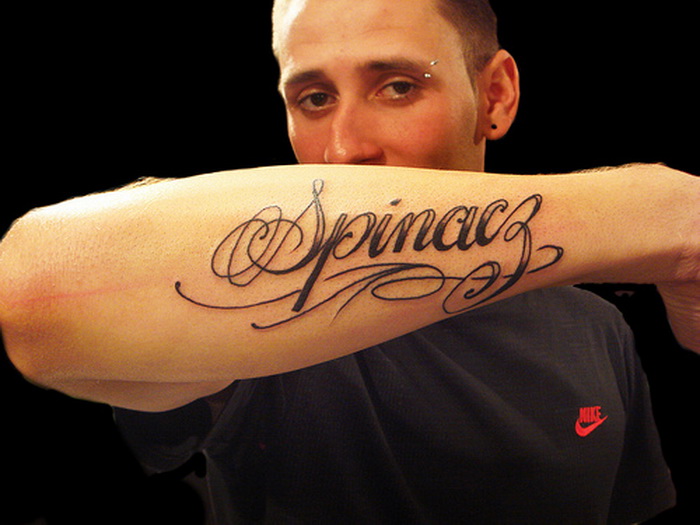
Famous Best Tattoo Fonts For Guys 2022
Famous Best Tattoo Fonts For Guys 2022. And with this font, you are entitled to many creative designs. This beautiful cursive tattoo font is great for both men’s and women’s tattoo designs.
Best tattoo font for guys; Best tattoo fonts in 2020 1. If you intend to get a tattoo with a cursive font, we suggest you get to know the satisfaction and amsterdam four slant fonts.
Tattoo Fonts For Men Are Normally Quite Bold,.
This beautiful cursive tattoo font is great for both men’s and women’s tattoo designs. It has young and energetic vibes merged with blackletter typeface design. Plain and subtly melancholic, the tattoo’s sad message is enhanced due to its kingsbridge.
If you are looking for chicano culture and street art then you have style. 110+ best tattoo fonts for men & women cool tattoo fonts for men. It has stylish script letters with uppercase.
Below Are Ten Of The Best Tattoo Fonts Ideas For Men And What They Represent.
Best tattoo fonts in 2020 1. The power and beauty of the text can truly be showcased by stunning tattoo fonts. Qaskin is a handwritten font with a vintage theme.
Porcelain Is A Grunge Calligraphy Or Script Font.
This Is Without A Doubt One Of The Most Popular Tattoo Fonts Of All Times.